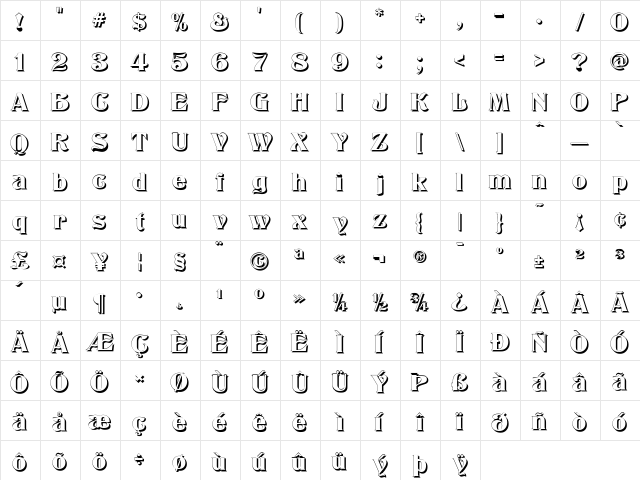
Klarissa Shadow Regular
Design Context for Klarissa Shadow Typeface
Klarissa Shadow is built around its visual character rather than neutral utility — its distinctive forms are designed to make an impression at display sizes.
Font Pairing: Pair with a clean neutral sans-serif for body copy to let Klarissa Shadow's character lead without overwhelming the composition.
Pro Tip: Use Klarissa Shadow exclusively at display sizes — it was designed to be seen, not read at length. Let a neutral companion handle body copy.